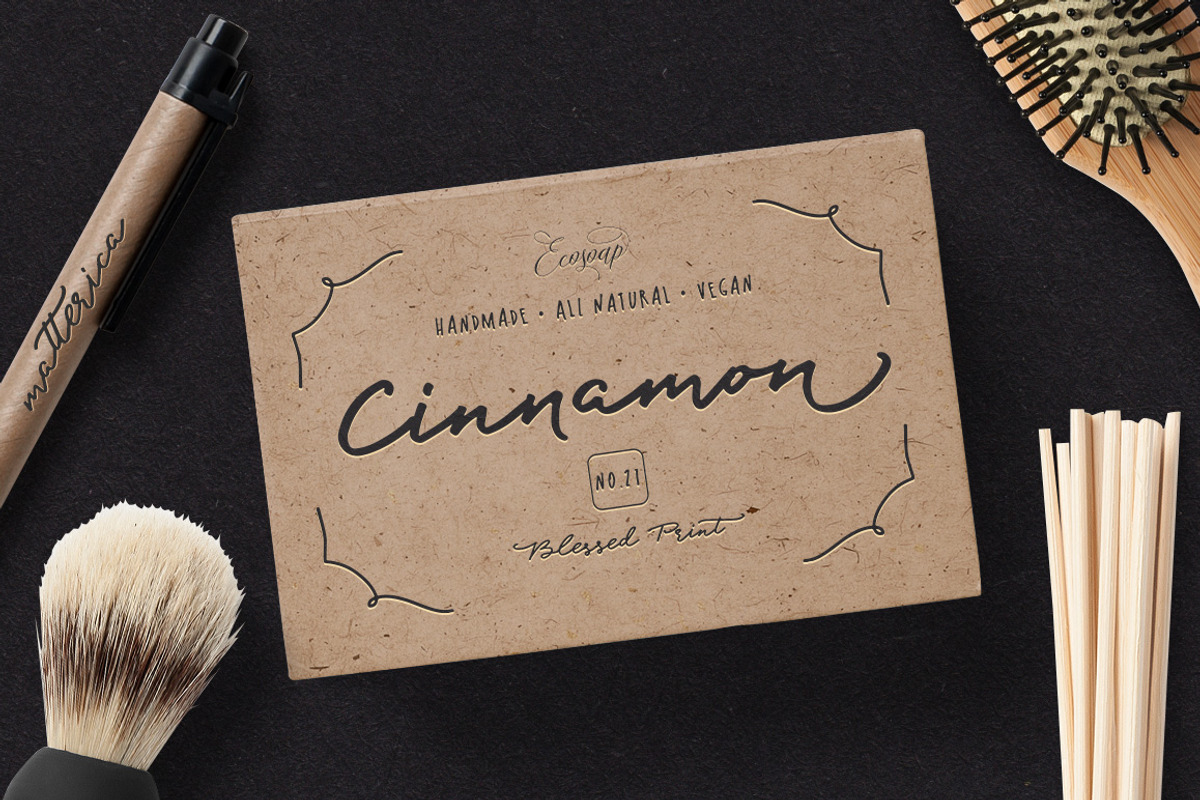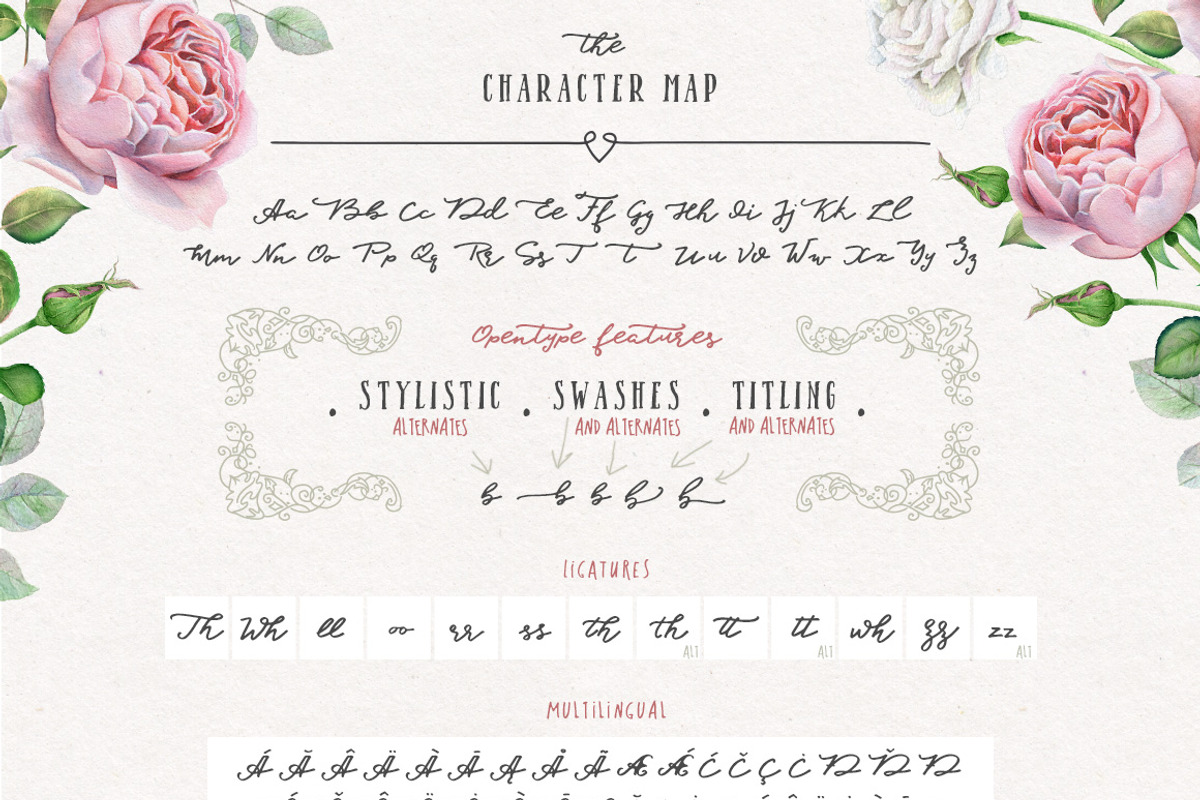
Blessed Script with sweet BONUS
Introducing incredibly fresh and mysteriously blooming: Blessed Script! So unique hand-lettered font with lovely paired 48 end-swashes.
Blessed Script is a hand written calligraphy typeface with a playful and yet elegant baseline. Additionally you will get a BONUS: extra two hand-crafted fonts with imperfect edges to get draft appearance & 215 hand-sketched illustrations.
BlessedScript consist of a large amount alternates & ligatures which get you absolutely unique look for the each single word.
It is smart! Try Opentype features to access additional five style options without opening glyph panel:
- Stylistic alternates are available in Photoshop’s Character panel, Illustrator Glyph’s panel, Microsoft Word and others applications which support opentype features.
- Swashes with Swashes alternates. Just click ‘swash’ in Adobe photoshop panel or Illustrator to get a delightful beginning swash style. It goes with additional option when click ‘alternates’ to get another one swash.
- Titling and Titling alternates. Choose ‘titling’ in your character/text panel apply titling or titling alternates to access end-swashes.
Rest of the alternates available though out the Glyph panel only.
With Blessed Script you will get PUA (private use area), which means that each of the alternate glyph has its own Unicode and you can copy/paste it directly to your application from the Font Book (Mac users) or Character Map (Windows). It is incredibly important as crafters can use BlessedScript with SILHOUETTE & CRICUT DESIGN SPACE.
- BlessedScript-Swashes .otf/ .ttf/ .woff – 24 individual swashes for beginning of the letter and 24 for endings. All of them paired symmetrically. A-a, B-b, etc
- BlessedAppetite-Sans .otf - Bouncy hand-doodled typeface which goes with uppercase glyphs (2 options) It looks awesome together with Blessed Script and gives so much harmony. It supports multilingual characters.
- BlessedMamaliga-CondensedSerif .otf – another very useful handcrafted font for organically pairing with a script. Drawn with imperfections, supports international characters.